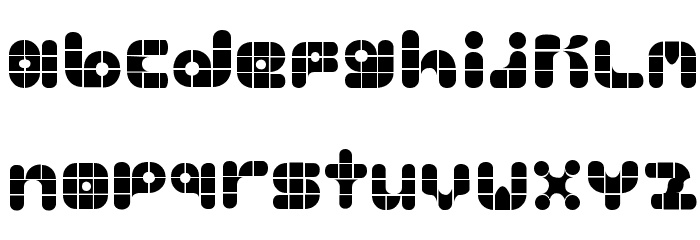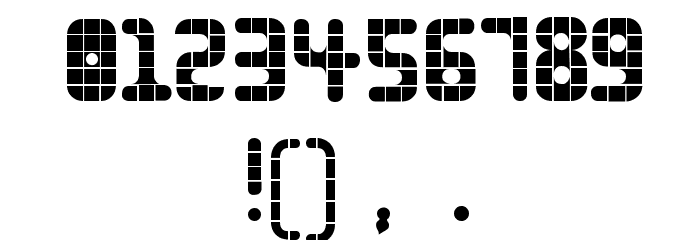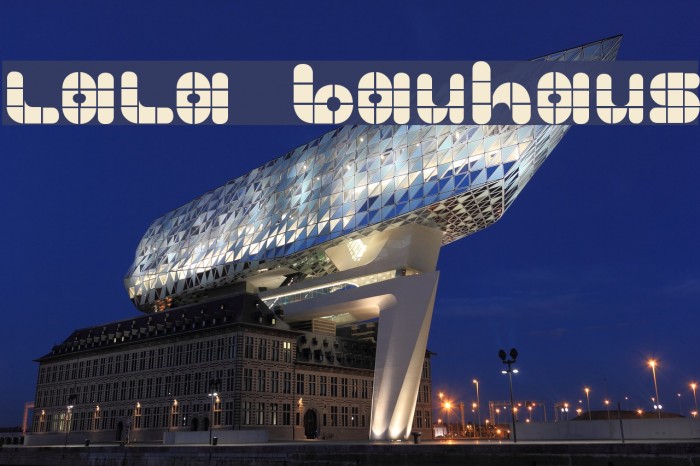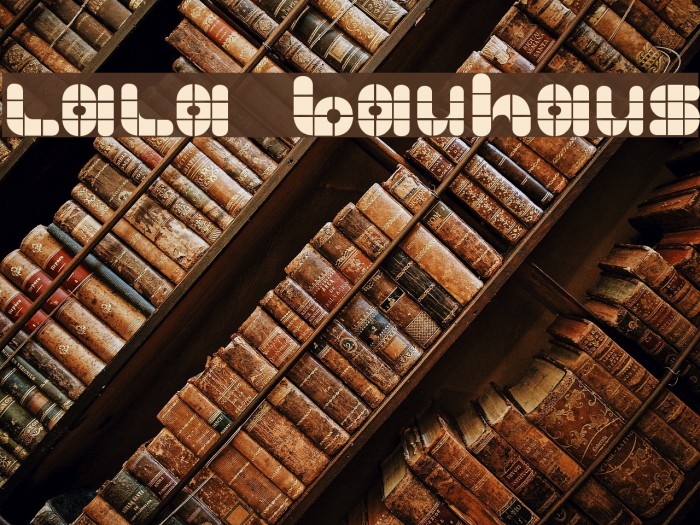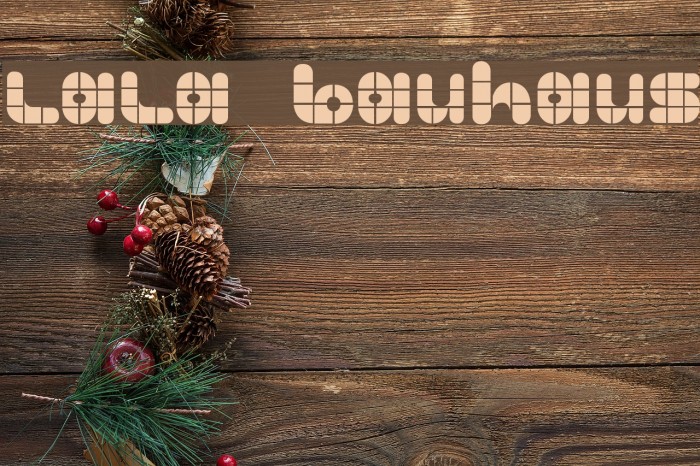
lala bauhaus Font
This font features a geometric and modular design, characterized by its use of circular and rectangular shapes to form each letter and number. The style is reminiscent of the Bauhaus movement, emphasizing simplicity and functionality with a modern twist. The characters are constructed from a grid-like pattern, giving them a unique, pixelated appearance. This design choice results in a bold and striking visual impact, making it ideal for attention-grabbing headlines or artistic projects. The font maintains a consistent weight throughout, with no variation in stroke thickness, contributing to its uniform and cohesive look.
A geometric, grid-based font with a modern Bauhaus-inspired design.
- Proposed Projects: Ideal for modern art projects, branding, posters, and digital media where a bold, artistic statement is desired.